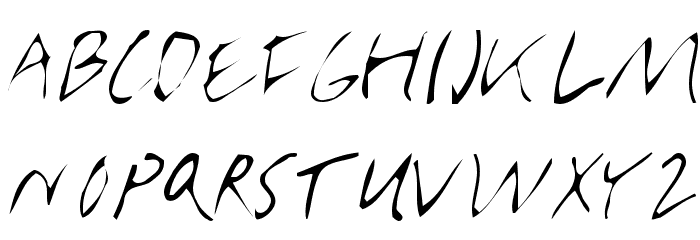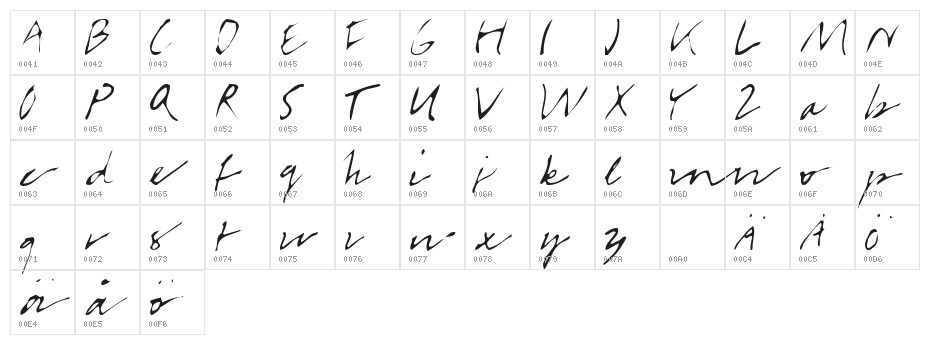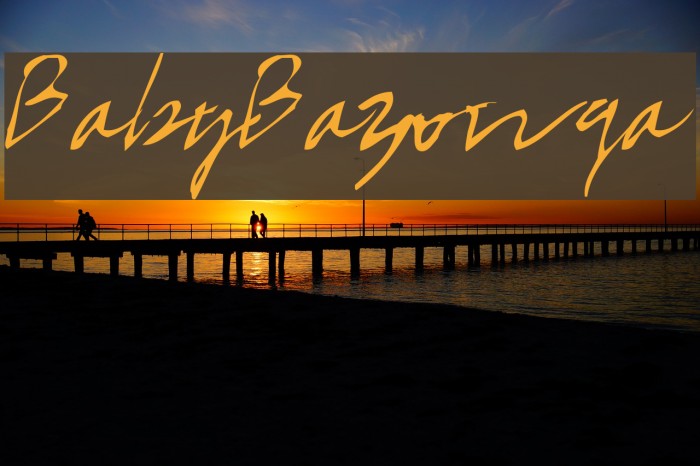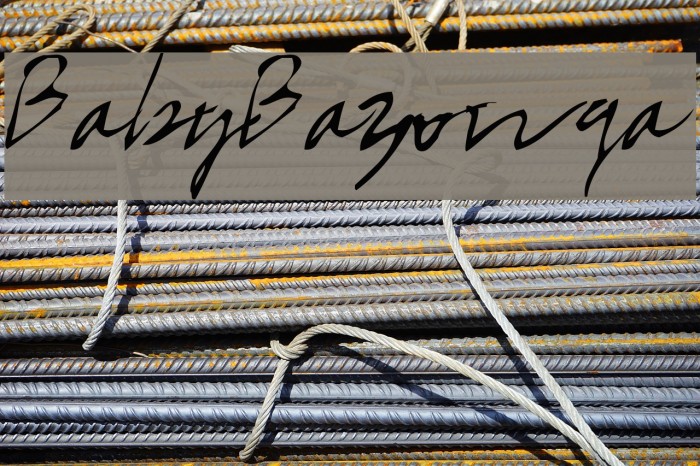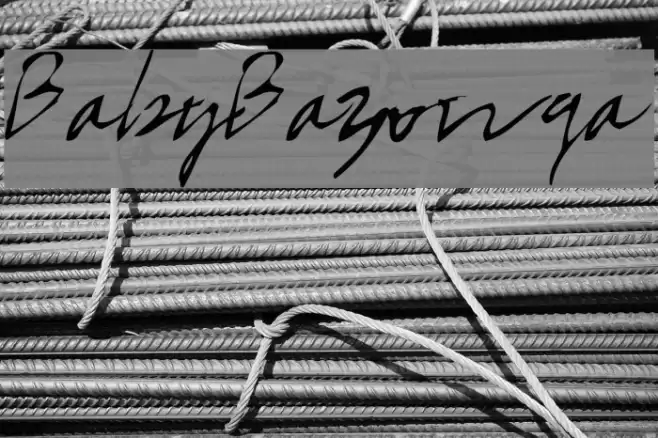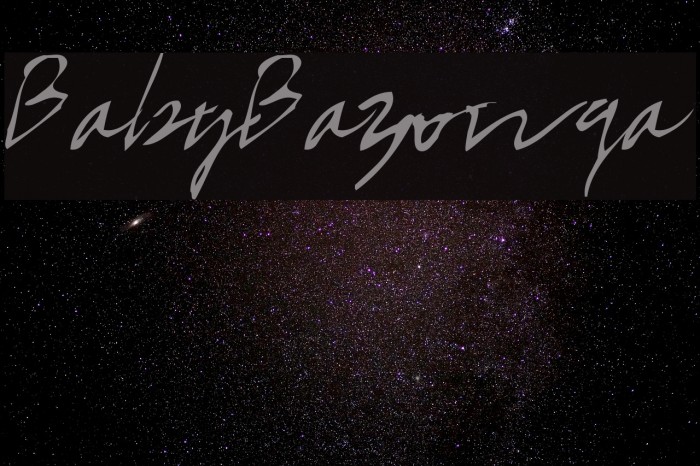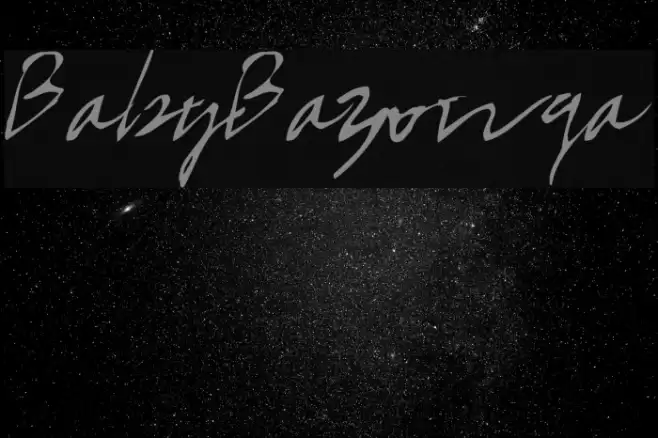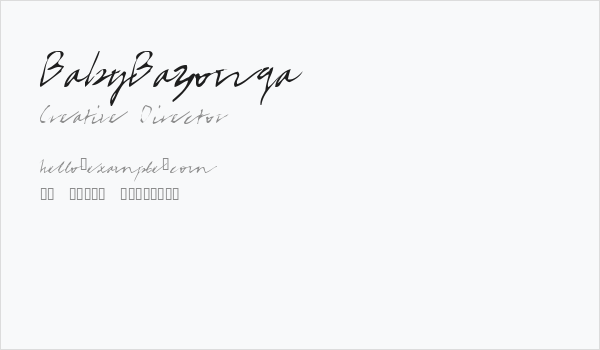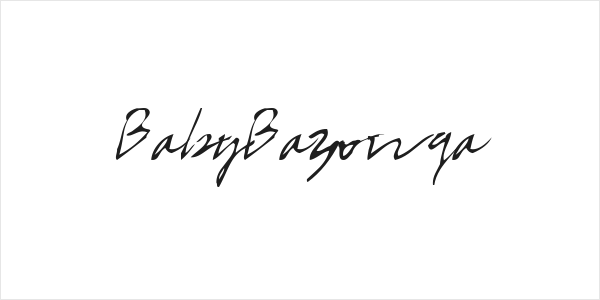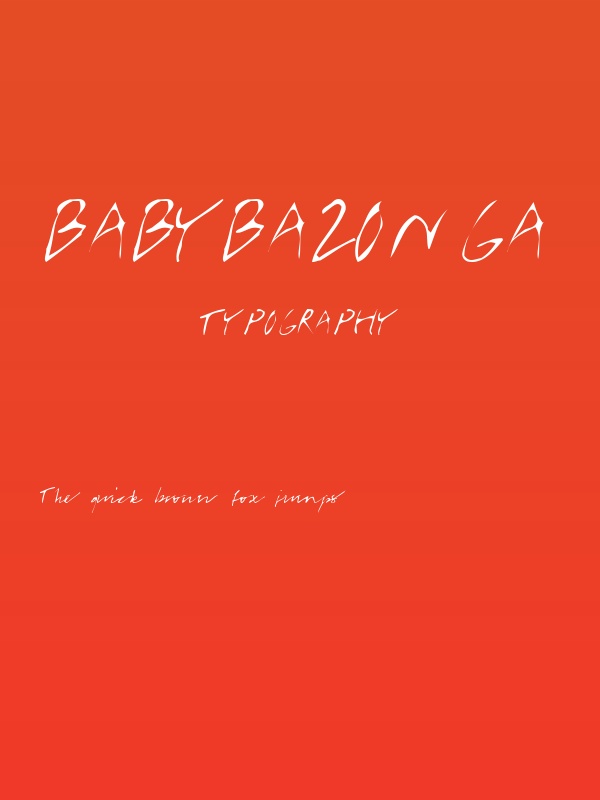
BabyBazonga Font
BabyBazonga Description
This font exhibits a dynamic and fluid script style, characterized by its expressive and artistic strokes. The letters are connected in a cursive manner, creating a sense of movement and elegance. The uppercase letters are bold and prominent, while the lowercase letters maintain a consistent flow, enhancing readability. The strokes vary in thickness, adding a touch of sophistication and flair. This font is ideal for projects that require a personal and creative touch, such as invitations, greeting cards, and artistic branding. Its unique style makes it stand out, offering a blend of modernity and classic script aesthetics.
| Proposed Projects | Ideal for invitations, greeting cards, artistic branding, and creative projects. |